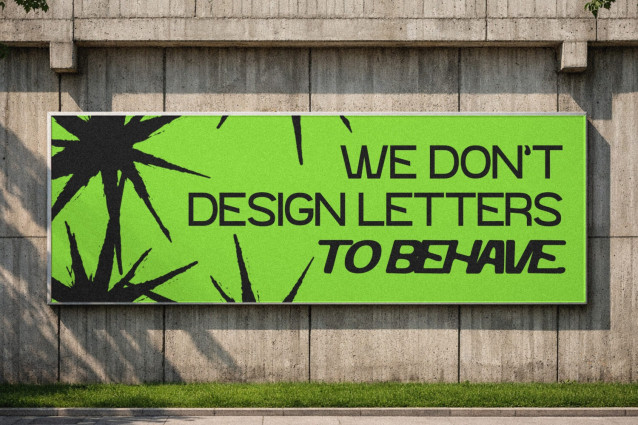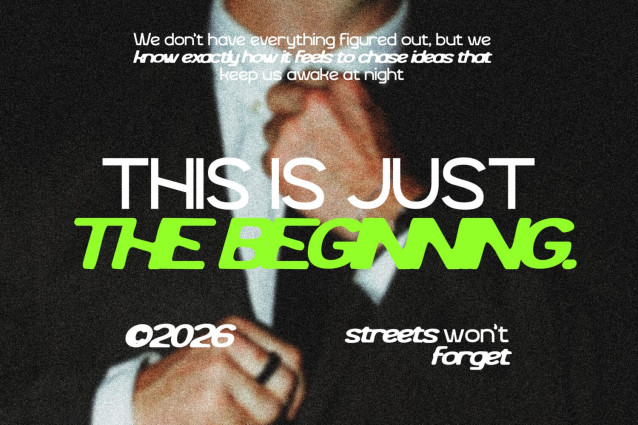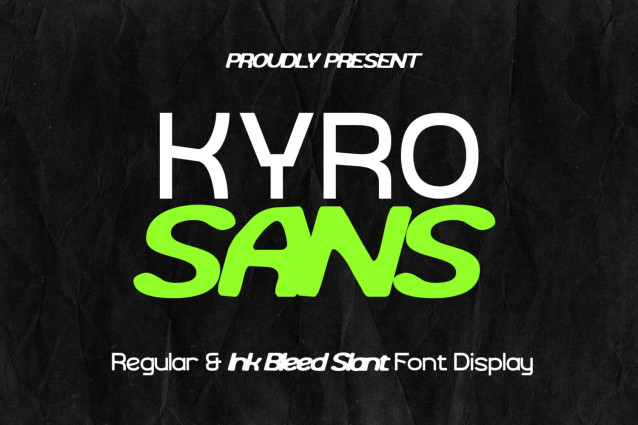
Kyro Font
Kyro Font is a modern display font designed to convey a strong, clean, and futuristic impression. With bold letterforms, balanced proportions, and slightly rounded corners, this font is perfect for designs that want a bold and standout look.